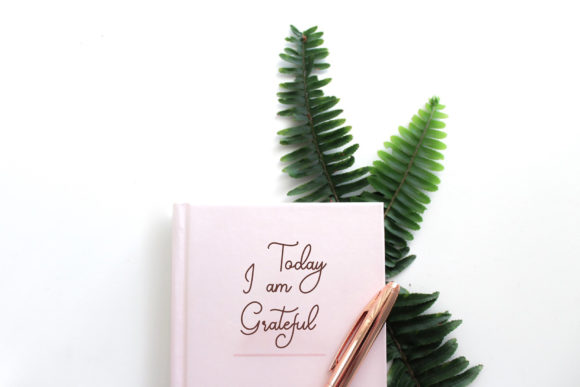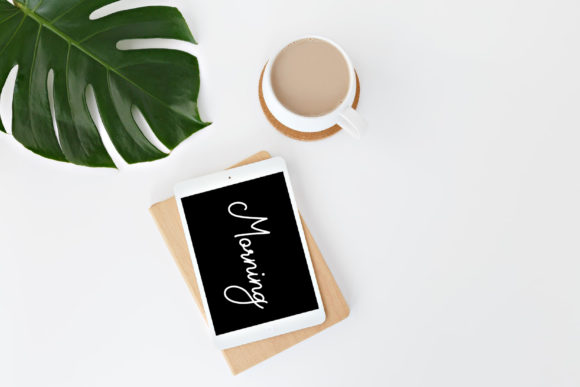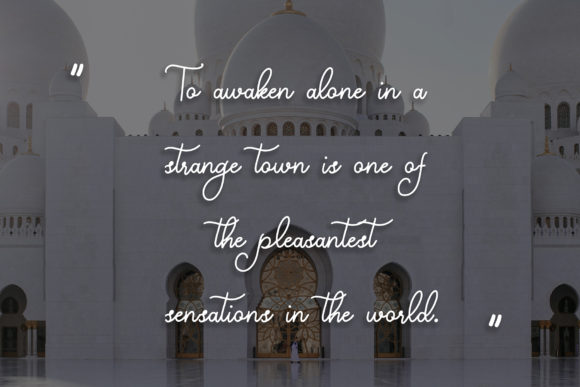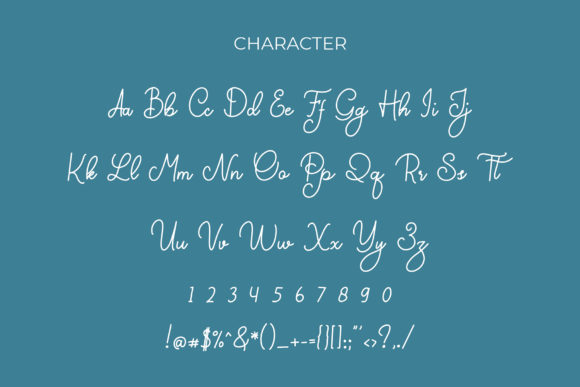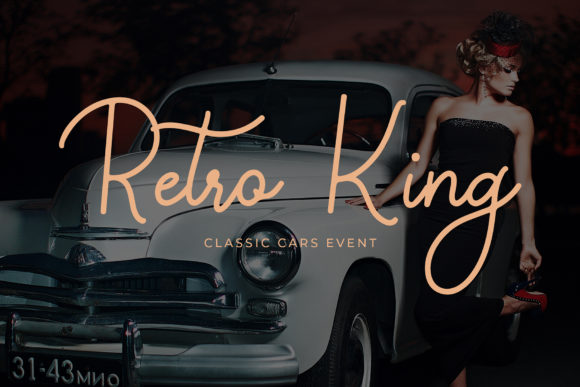
The Perfect Font for Your Next DIY Project
Remember that moment when you’re brainstorming ideas for your next DIY project and the perfect font just pops into your head? You know, that feeling when everything starts to fall into place and you can envision the entire project coming to life?
Well, we’re excited to introduce you to the Gemblo Font, a stunning handwritten font that’s inspired by classic typography. This gorgeous font is designed to bring your DIY projects to life with its unique style and character. Whether you’re creating a handmade card, a custom sign, or a DIY decoration, the Gemblo Font is the perfect addition to your design project.
As a designer, you know the value of a great font. The Gemblo Font offers a level of sophistication and elegance that’s hard to find in other fonts, making it a valuable addition to your design toolkit.
Gemblo Font Key Features
- Size: The font comes in a single weight, but it’s highly scalable, making it suitable for various design applications, from small text to large headings.
- Resolution: Gemblo Font is designed to be resolution-independent, ensuring it looks crisp and clear at various resolutions and screen sizes.
- Unique Characteristics: This font features a unique blend of modern and vintage elements, with intricate details and subtle textures that add depth and visual interest.
- Legibility: Gemblo Font is designed for optimal legibility, making it suitable for body text, headings, and even display typography.
Gemblo Font Review
I’ve had the chance to work with Gemblo Font, and I must say it’s a decent addition to any designer’s toolkit. ✨ One of its standout features is its clean and modern aesthetic, which makes it perfect for minimalist designs. The font is highly legible and works well in a variety of contexts, from body text to headings.
Another advantage of Gemblo Font is its versatility. ✨ It comes in multiple weights and styles, allowing you to mix and match to suit your design needs. Additionally, it’s highly customizable, making it easy to fine-tune the font to fit your specific project.
- ⚠️ Limited language support: Gemblo Font may not include all the languages you need for a particular project.
- ⚠️ Some characters may not render correctly: I’ve noticed that certain characters, such as those with accents or diacritics, may not display properly.
- ⚠️ Not ideal for small text: Gemblo Font may become too pixelated when used in very small sizes.
Overall, I think Gemblo Font is a solid choice for designers who want a clean and modern font. While it may have some limitations, it’s a great addition to any toolkit. With a little tweaking, you can make it work for even the most demanding projects.
Tips for Getting the Most Out of the Gemblo Font
For best results, use the Gemblo font in bold or italic styles to add emphasis and visual interest.
Combine the Gemblo font with other fonts to create a unique and eye-catching typography scheme.
The Gemblo font is ideal for:
Headings and titles
Brand logos and identities
Creative and artistic projects